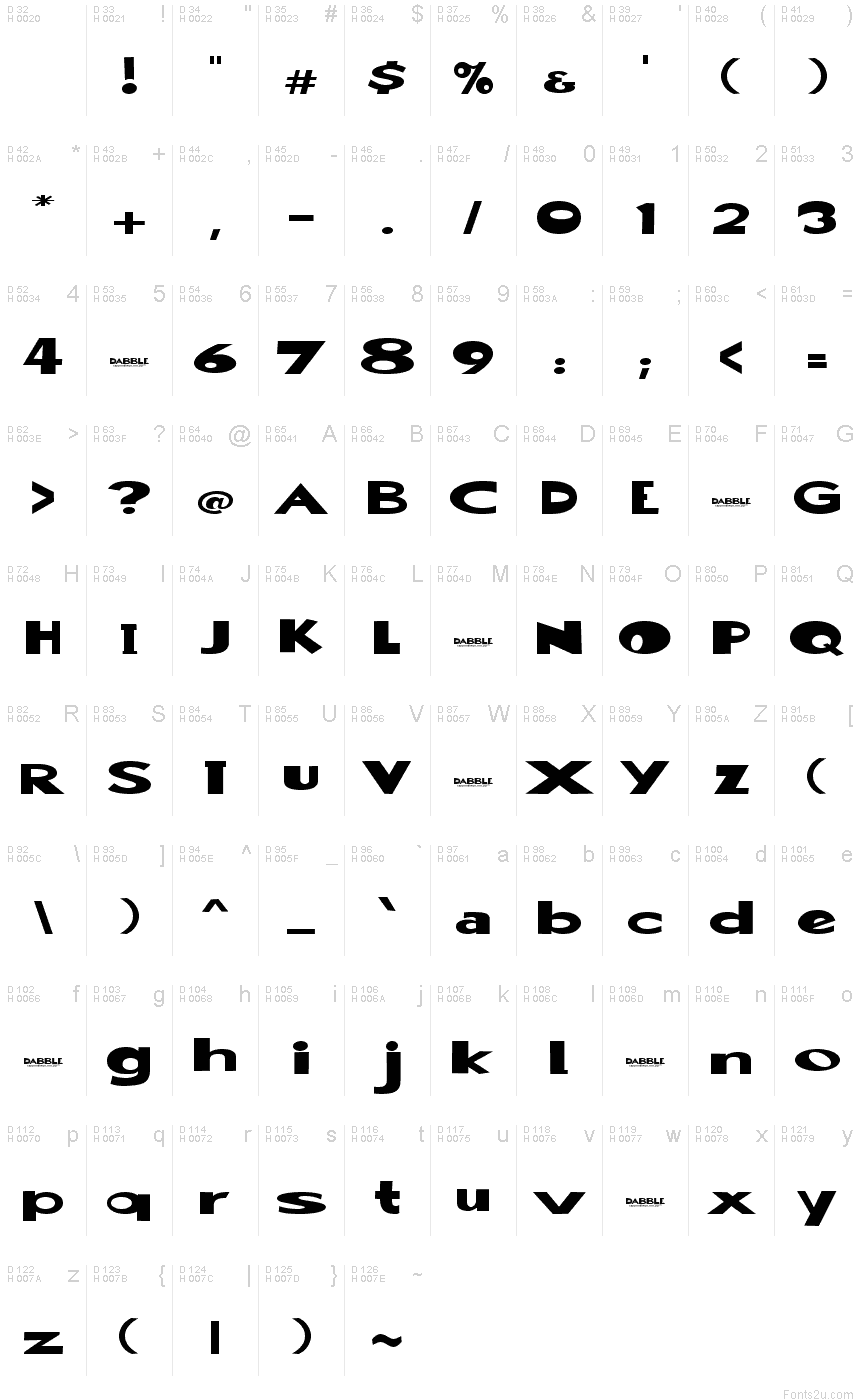
Dabble(eval)
Dabble(eval) font by Chris Brown is a free comic display typeface that turns any headline into a bold, expressive shout. Its thick, inky curves and slightly leaning rhythm feel like hand-painted lettering blown up on a poster, with just enough irregularity to feel human while staying clean and legible. The chunky forms pack solid color on the page, giving text a playful, almost squishy weight that’s hard to ignore.
Using Dabble(eval), this free font shines on comic covers, kids’ book titles, playful branding, event posters, snack packaging, and bold social graphics. The rounded shapes keep things friendly, so even loud messages feel fun rather than aggressive. For a simple combo, pair Dabble(eval) for headings with a clean geometric sans in smaller body copy to keep layouts lively but readable.